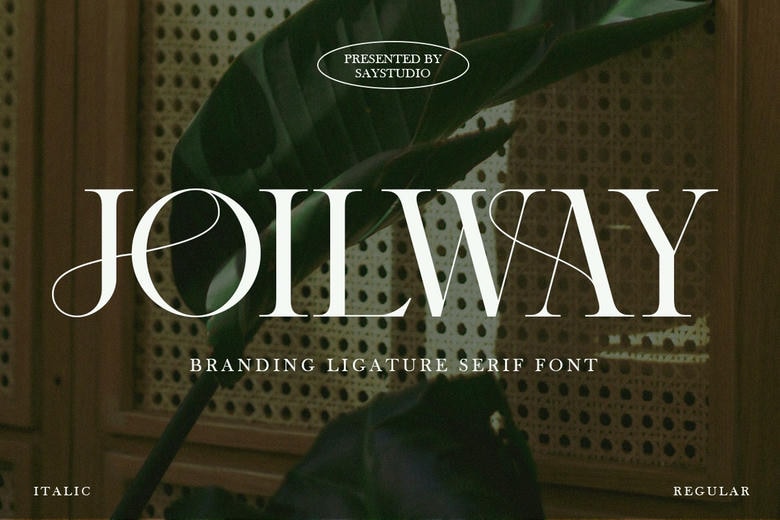
Joilway Font
Joilway is a lovely serif font. Joilway is available in Italic style and Regular style which is ideal in the luxury branding, editorial designs, invitations, and high-end typography projects. Having elegant ligatures and advanced character set, it adds a high-end, professional appearance to any design. Be more creative with Joilway- download it and add beauty to your next masterpiece!
Joilway Serif Font